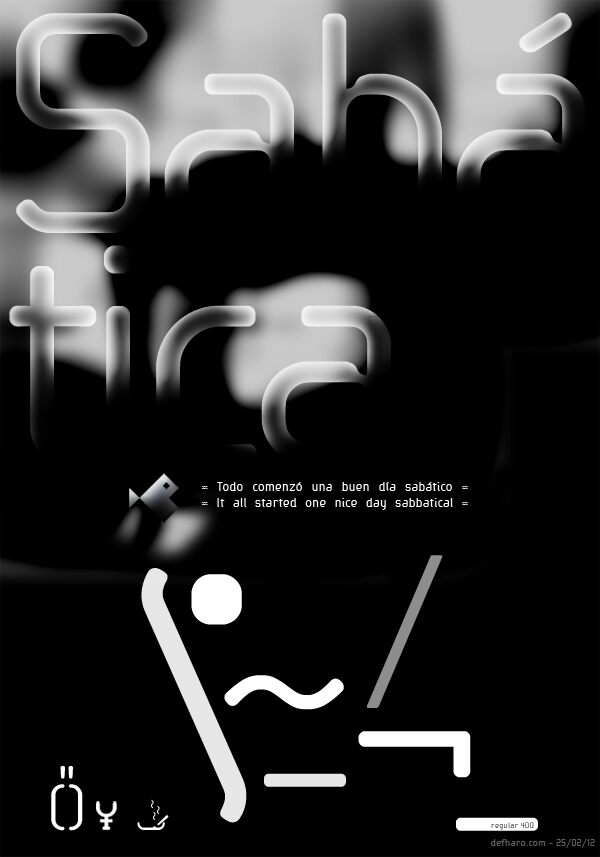
Sabatica by deFharo is a free rounded sans serif with even stroke weight, softened corners, a markedly tall, slim profile, and an unusually airy silhouette. The lettering feels clean, open, gently mechanical, and slightly eccentric.
Architecture, fashion, and contemporary culture are convincing subjects for editorial covers, exhibition posters, identity systems, and boutique packaging because the narrow letters feel refined rather than corporate. The recurring arch shapes can echo doorways, product contours, or simple line illustrations, making the type part of the graphic idea instead of a neutral caption.
The font was started on a Saturday in November and completed on a Saturday in February, which is the origin of its name, Sabática. A smaller version is available for use as webfonts, and the full version can be downloaded free from my website.
Sabatica Regular